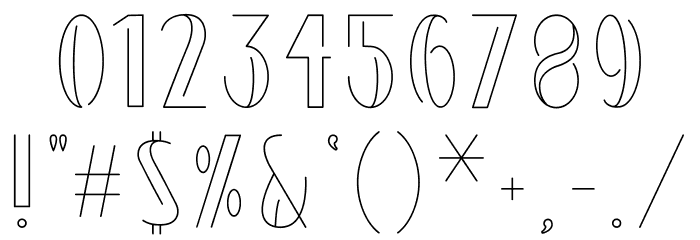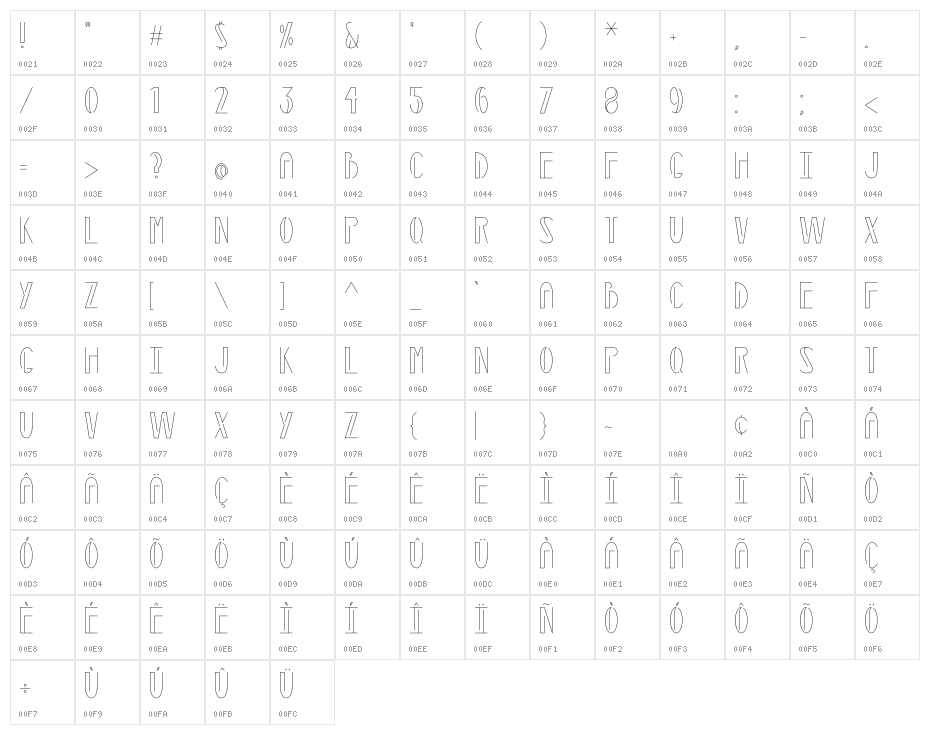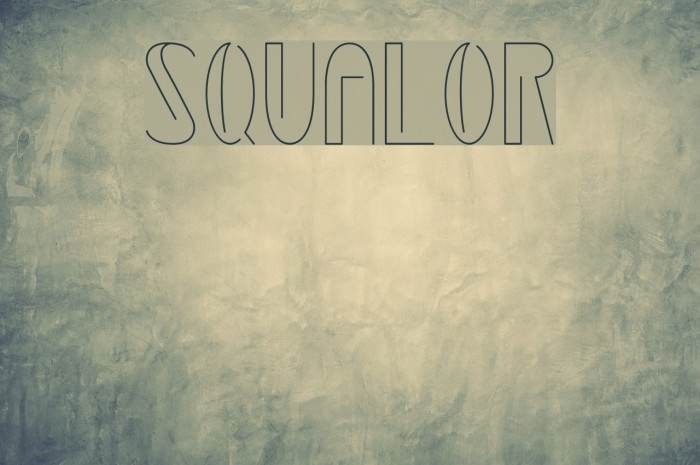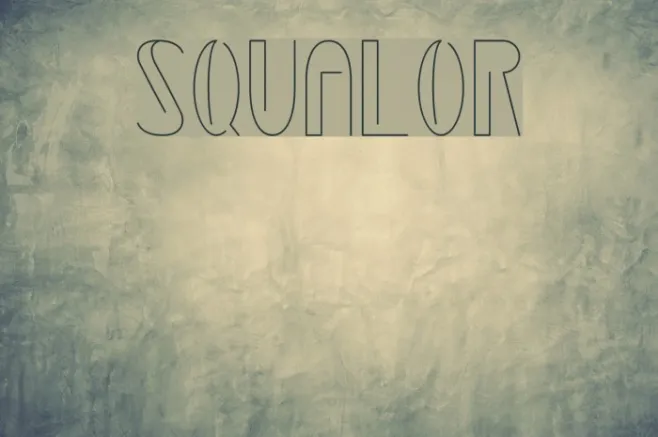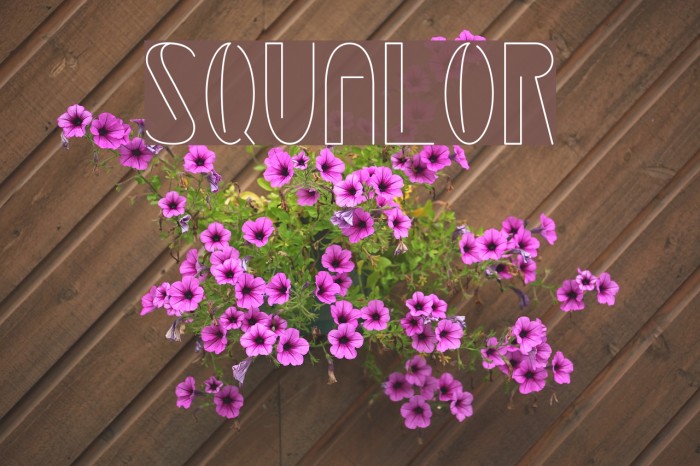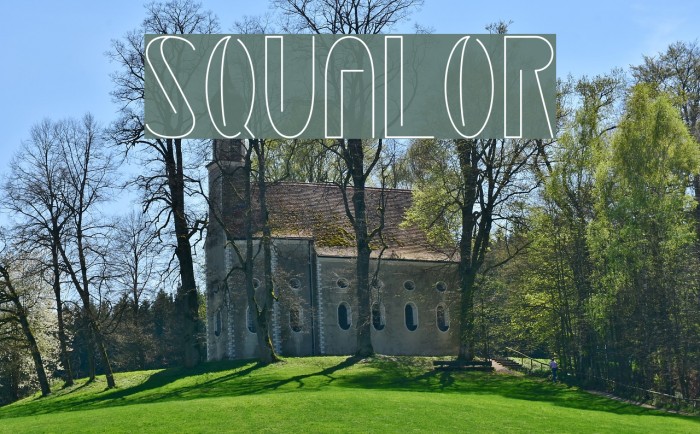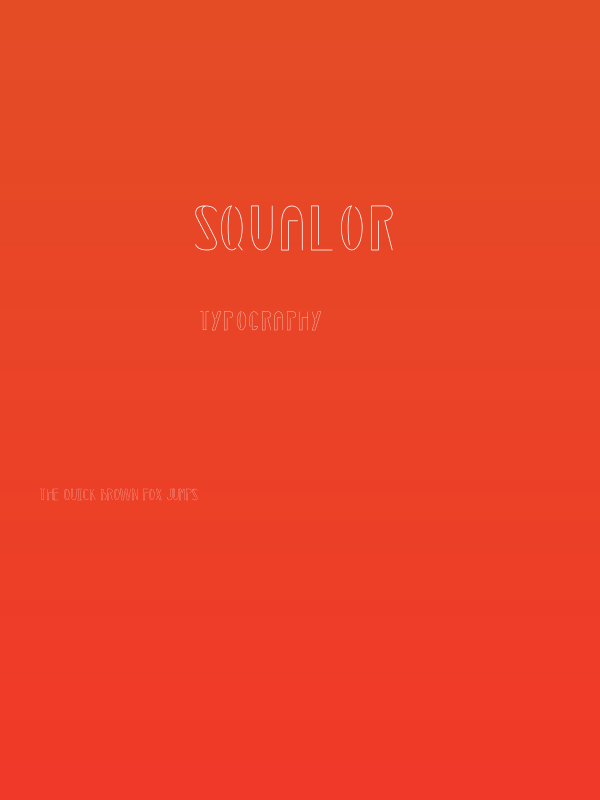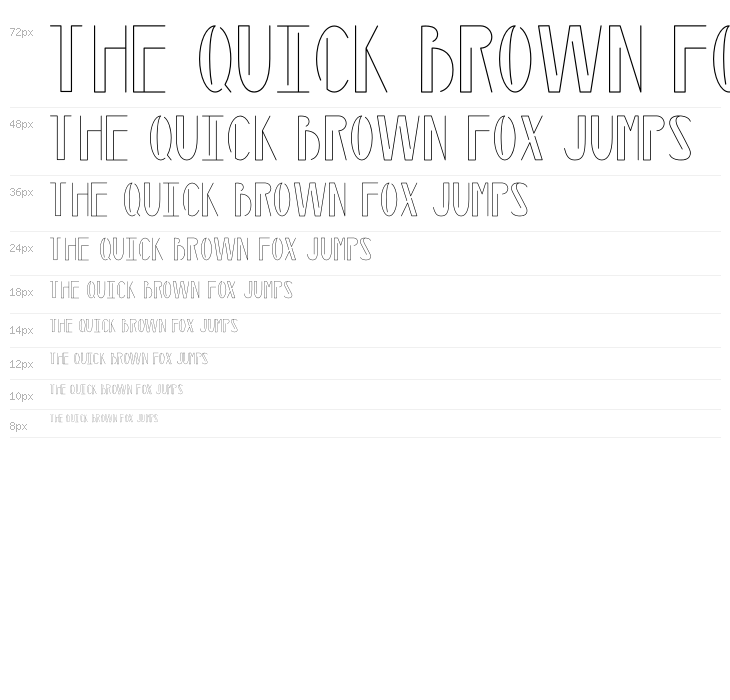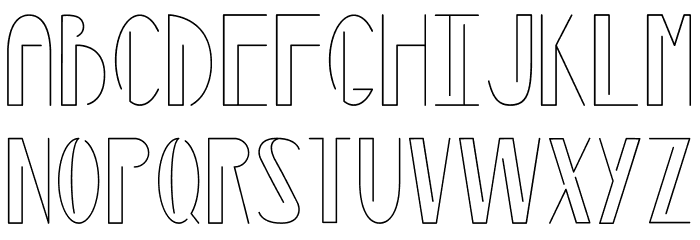
Squalor Font
Squalor Description
This font features a unique and modern design with a geometric and minimalistic approach. The characters are outlined, giving them a hollow appearance that adds a contemporary and stylish flair. The uppercase and lowercase letters maintain a consistent height, with sharp angles and clean lines that create a sense of precision and clarity. The numerals and special characters follow the same design principles, ensuring uniformity across the entire typeface. This font is ideal for projects that require a modern and edgy look, such as branding, advertising, and digital media.
| Proposed Projects | Ideal for branding, advertising, digital media, and modern design projects. |